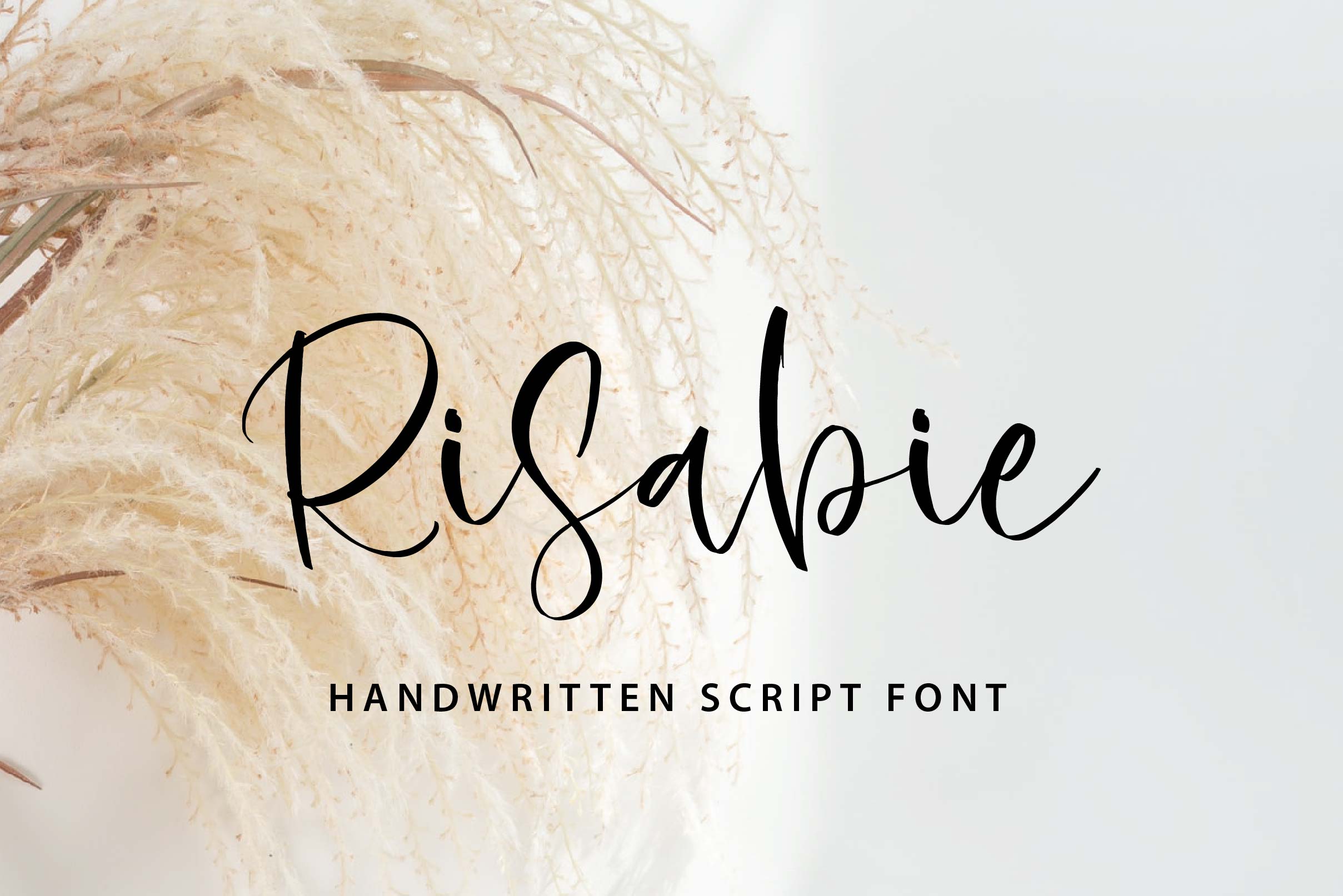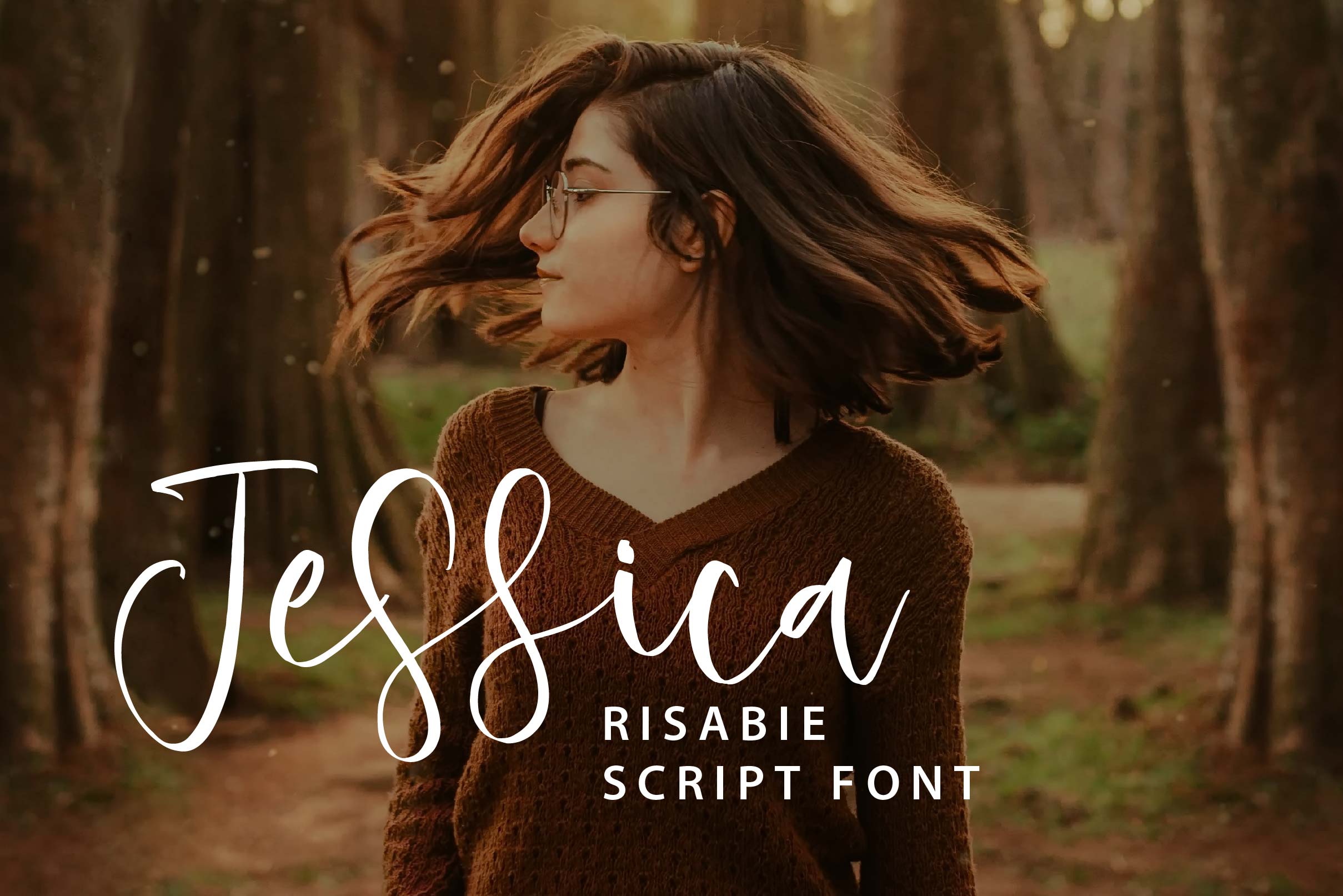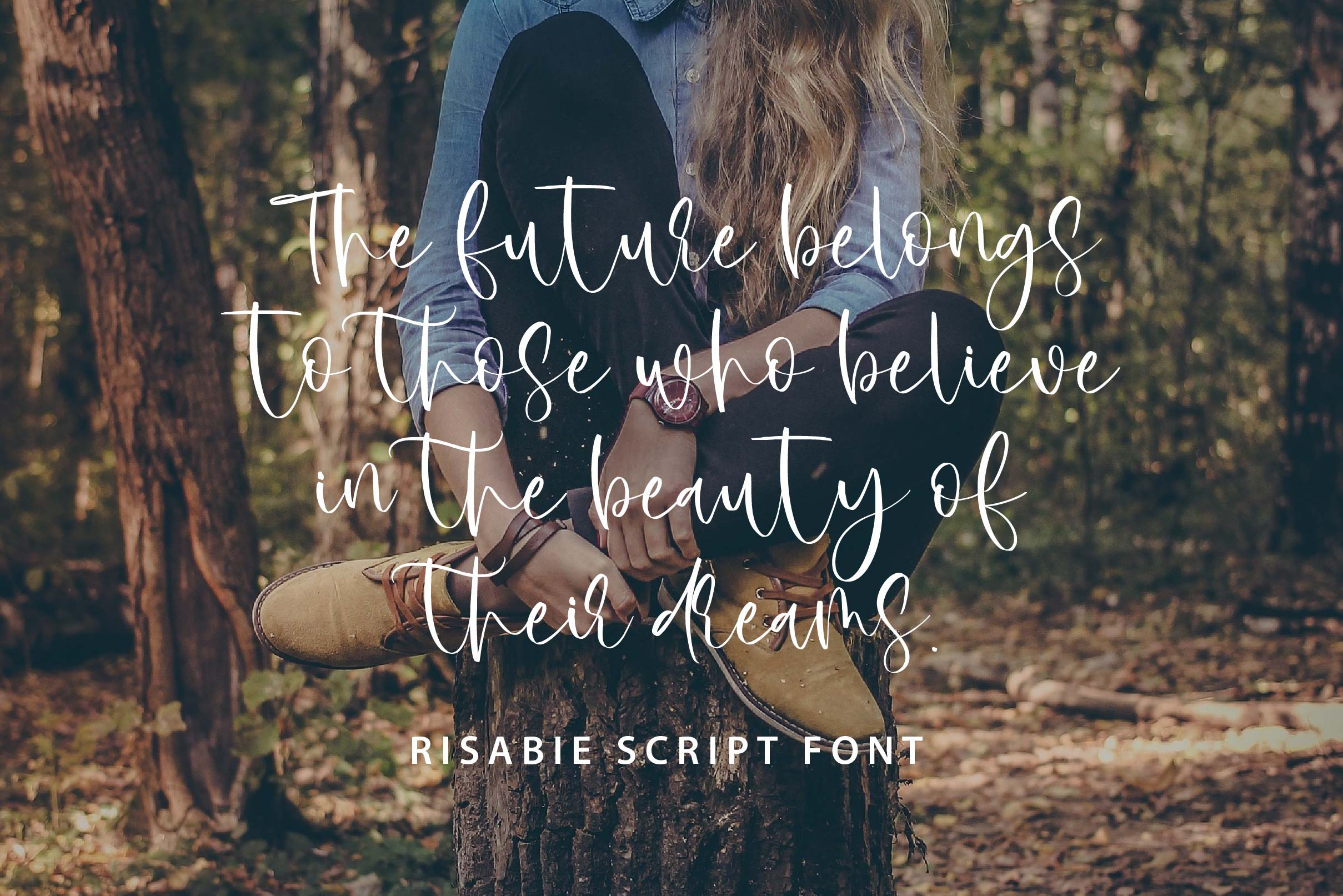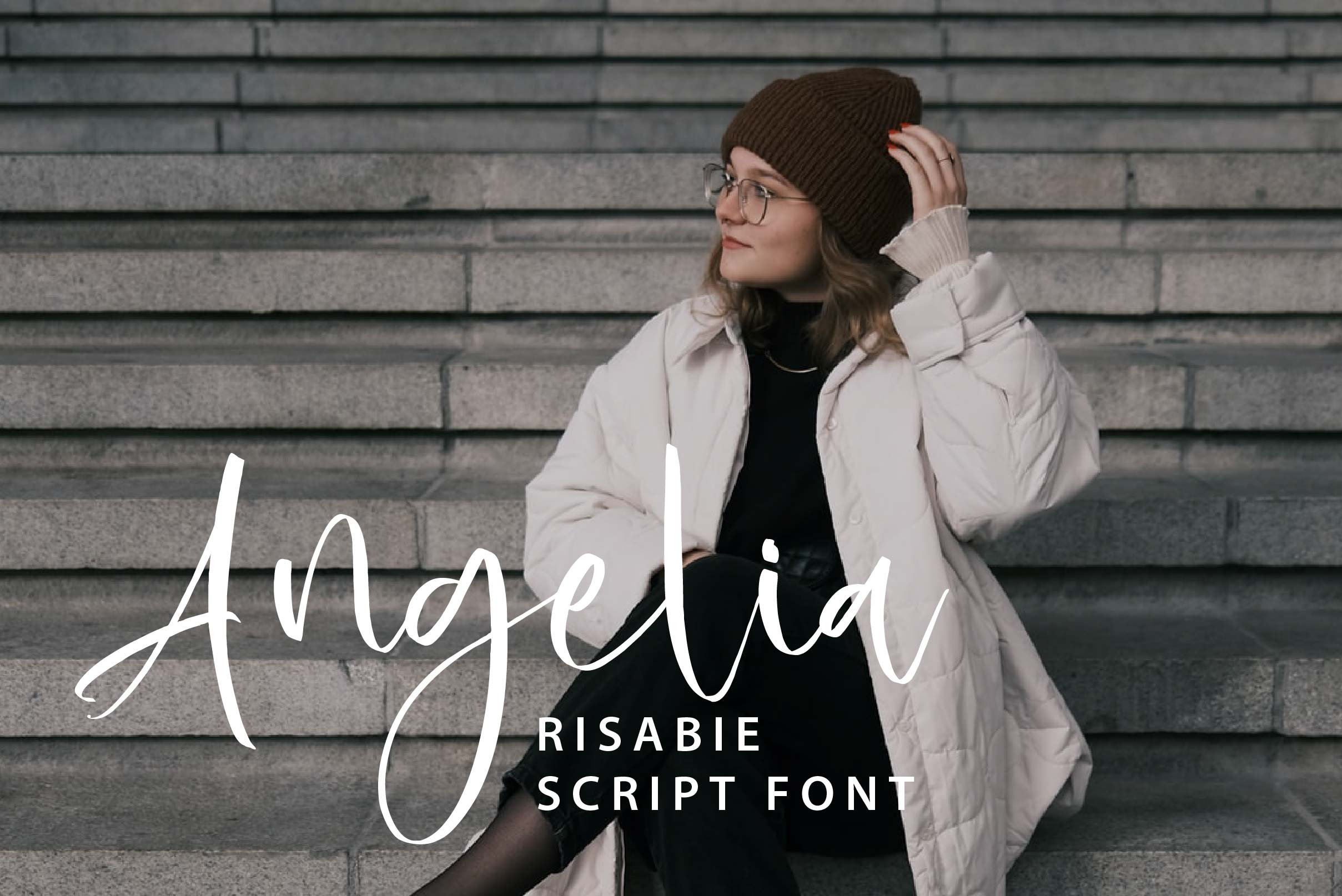
Risabie Font
Risabie Script Font is an amazing typeface. It has a modern style with an elegant touch. It can be used for various purposes, such as headings, signature’s, logos, wedding invitations, t-shirts, letterheads, signage’s, labels, news, posters, badges, and much more!
– Uppercase, Lowercase, Numeral & Punctuation
– Alternate Letters, Ligature & Swash/Tail